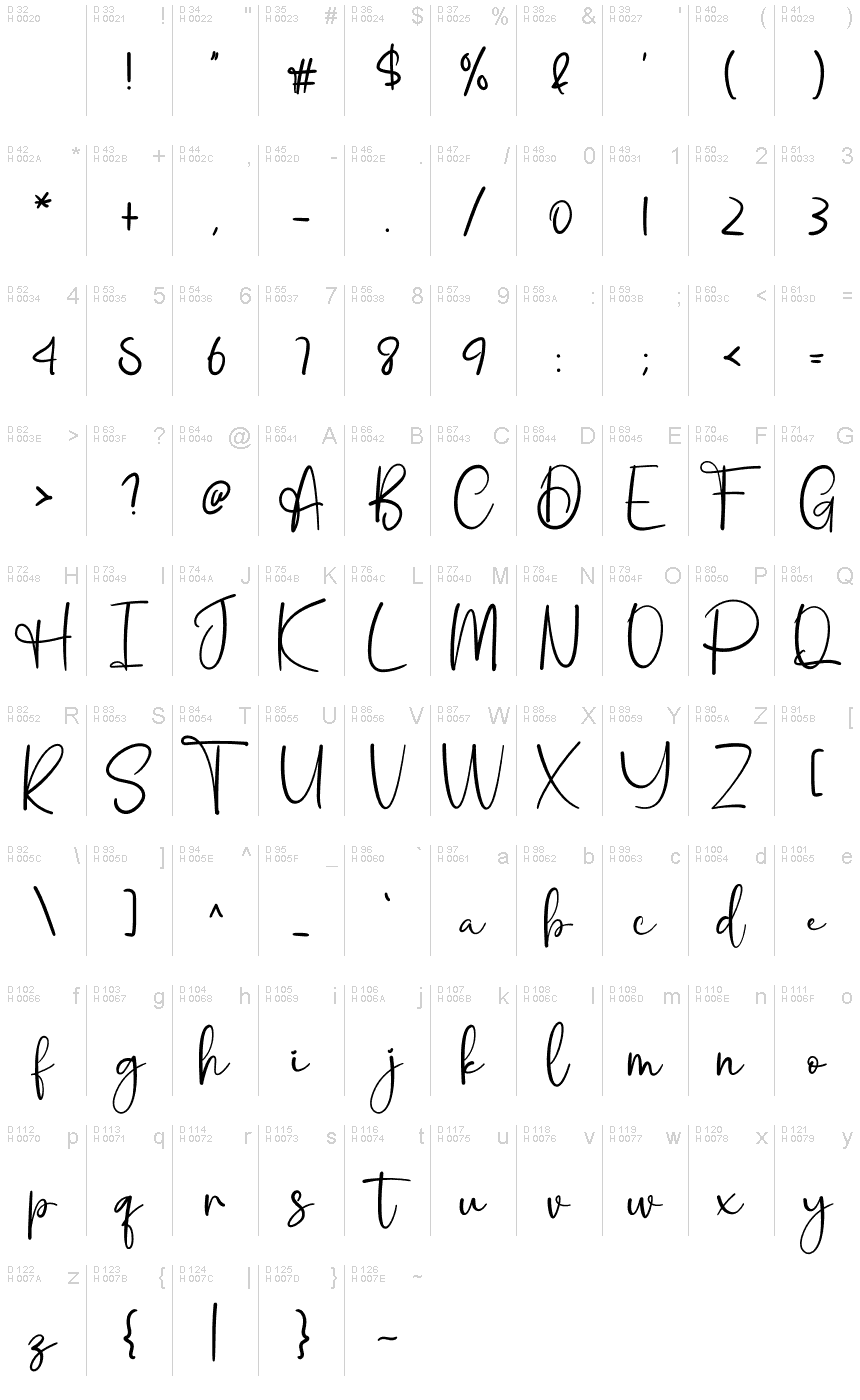
Watercolor
Watercolor, a lovely handwritten font by Abil Shidiq A, adds a touch of whimsy to your designs.
With its light weight and delicate strokes, this font is perfect for creating romantic wedding invitations that capture the essence of love. Its charming style also makes it suitable for designing cute and playful children's book covers that bring characters to life. Additionally, Watercolor's handwritten feel is ideal for crafting heartfelt personal blog headers or creating eye-catching social media graphics that effortlessly stand out from the crowd.
Let your creativity flow with Watercolor!